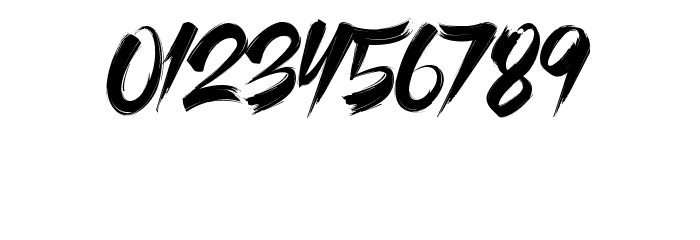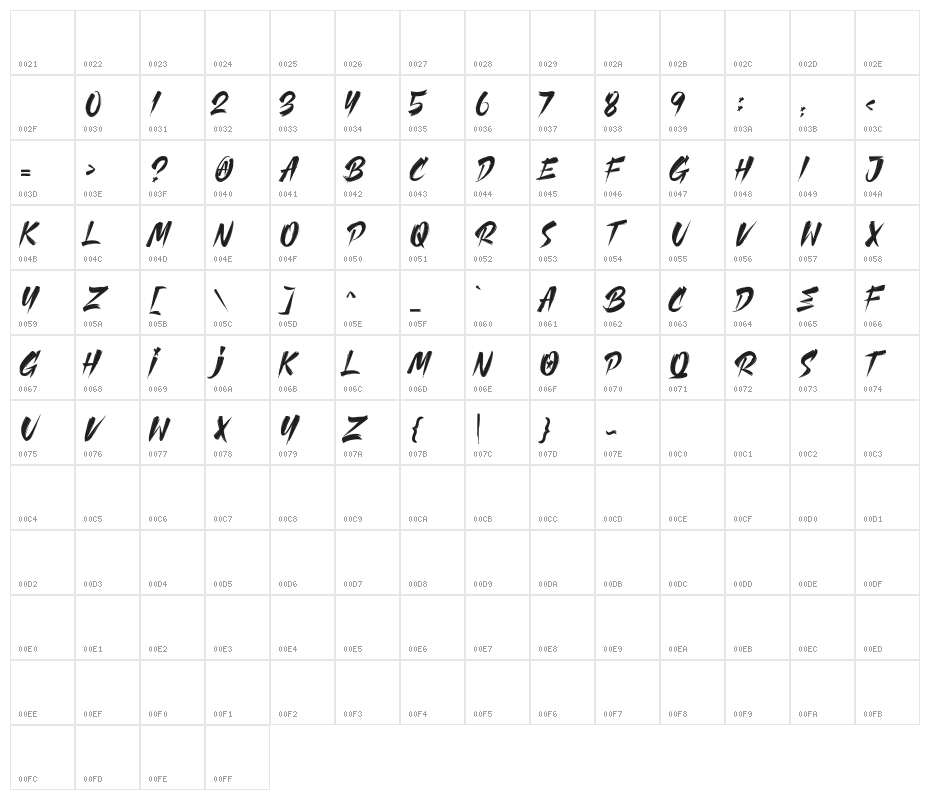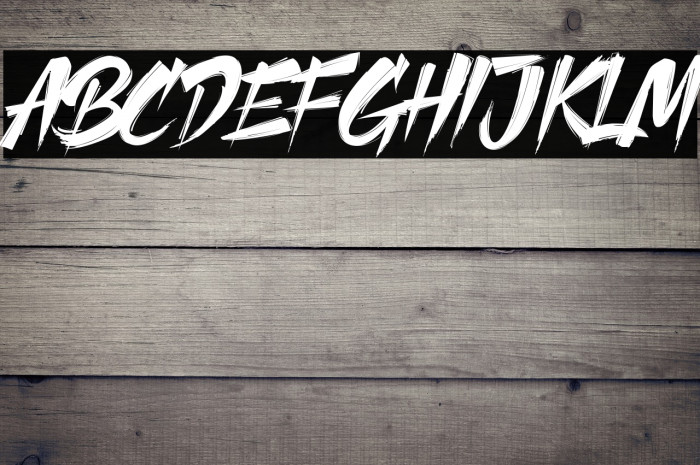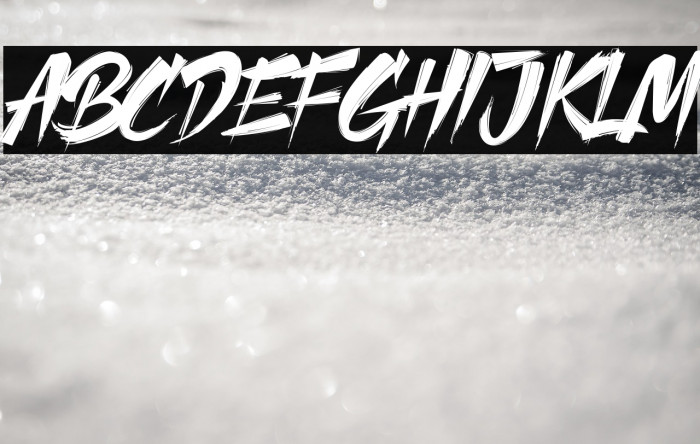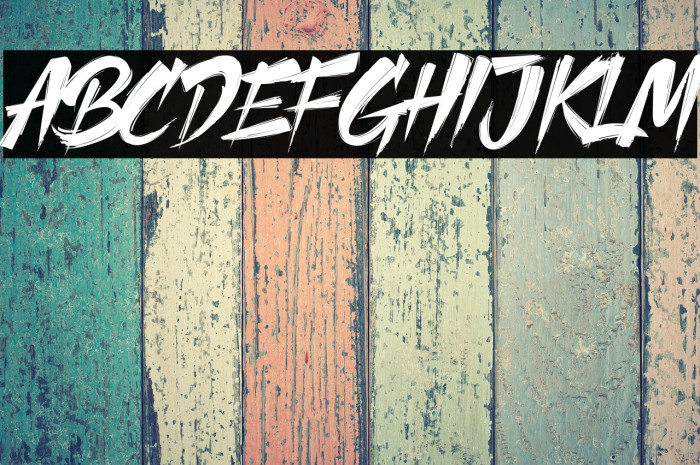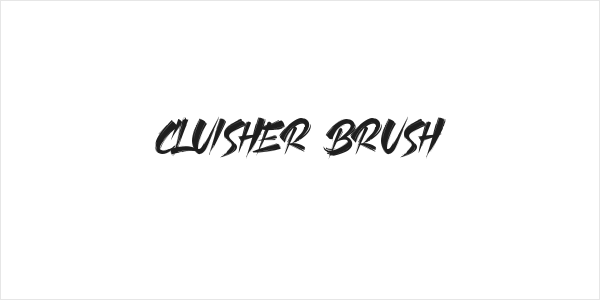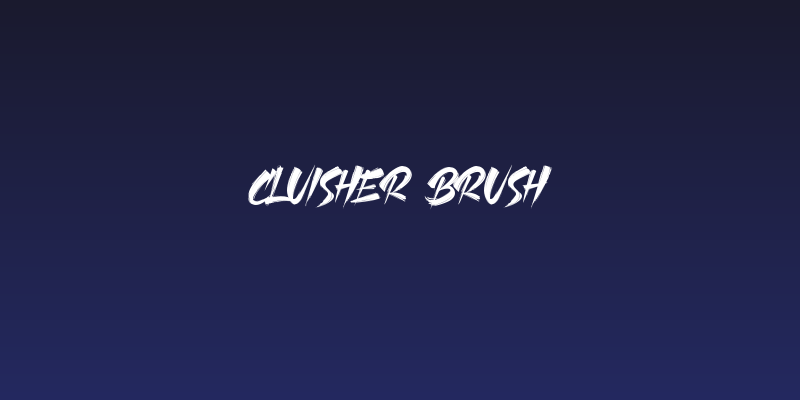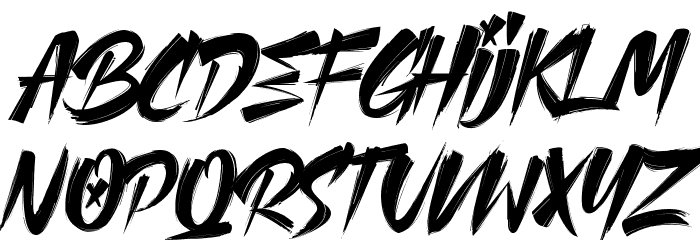
CLUISHER BRUSH Font
CLUISHER BRUSH Description
This font features a bold and dynamic brush style, characterized by its energetic strokes and expressive flair. The letters are crafted with a sense of movement, giving them a lively and artistic appearance. The uppercase and lowercase letters maintain a consistent brush texture, with varying stroke widths that add depth and interest. The numerals and special characters follow the same stylistic approach, ensuring a cohesive look across all elements. This font is ideal for projects that require a touch of creativity and boldness, making it suitable for eye-catching designs.
| Proposed Projects | Ideal for posters, branding, logos, and artistic projects that require a bold and creative touch. |